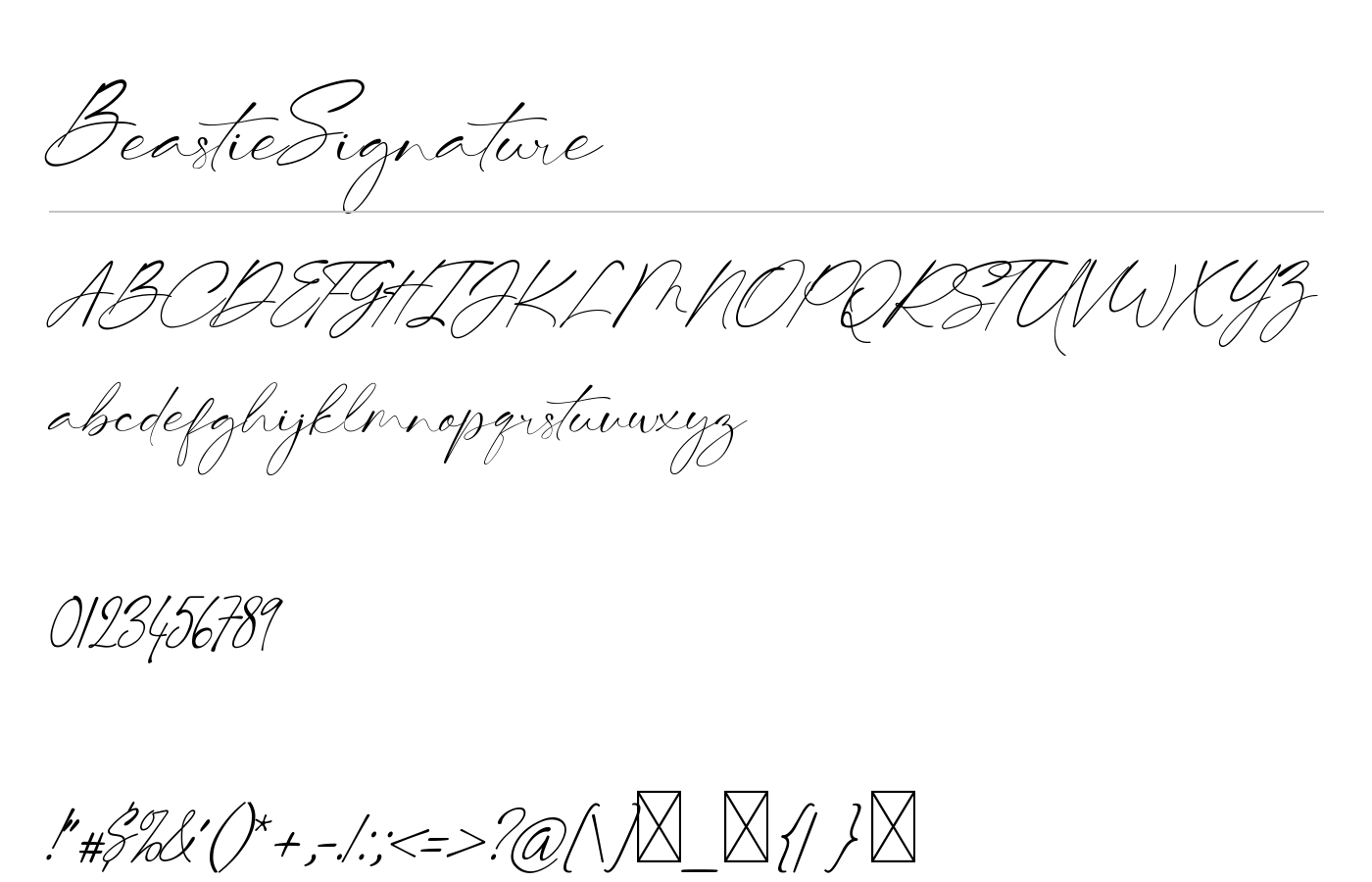
BeastieSignature is a delicate, elegant script font that mimics natural, flowing handwriting with slender, graceful strokes and high contrast. Its tall, narrow letterforms and fluid connections create a refined and personal feel, ideal for luxury branding, invitations, and sophisticated logos. This font works best in display settings where a stylish, intimate touch is desired.
BeastieSignature Font